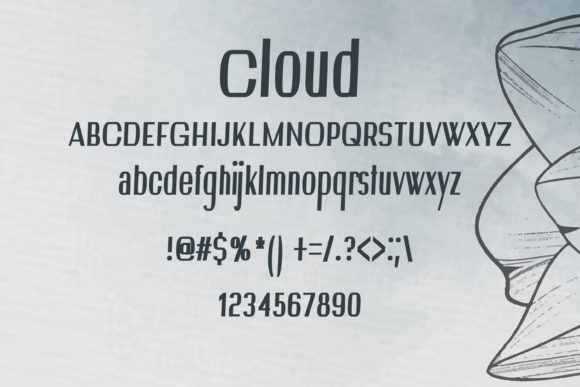
Introducing Cloud Font: Elevate Your Designs with a Futuristic Twist
In the realm of typography, fonts play a pivotal role in bringing ideas to life. Among the myriad of fonts available, Cloud Font stands out as a bold yet minimalistic display font that can add a futuristic edge to your designs. In this article, we’ll delve into the world of Cloud Font, exploring its features, benefits, and applications, as well as provide tips on how to effectively incorporate it into your creative projects.
What is Cloud Font?
Cloud Font is a thoughtfully crafted display font that embodies the perfect blend of boldness and minimalism. Its unique, interestingly shaped characters are designed to add a touch of futurism to your designs, making it an ideal choice for creative projects that require a distinctive edge. Whether you’re working on a logo, branding materials, or digital content, Cloud Font is sure to make your ideas come alive.
Key Features of Cloud Font
- Bold yet Minimalistic: Cloud Font strikes the perfect balance between boldness and simplicity, making it perfect for designs that require a statement piece.
- Uniquely Shaped Characters: Each character in Cloud Font is carefully crafted to provide a distinctive look that sets it apart from other fonts.
- Futuristic Aesthetic: Cloud Font’s futuristic design makes it an excellent choice for projects that require a modern and edgy feel.
- Versatile: Cloud Font can be used across various design applications, including logos, headings, and digital content.
Benefits of Using Cloud Font
So, why should you choose Cloud Font for your next design project? Here are some benefits that make it an attractive option:
- Adds Visual Interest: Cloud Font’s unique design adds visual interest to your designs, making them more engaging and attention-grabbing.
- Enhances Brand Identity: With its distinctive look, Cloud Font can help establish a strong brand identity that sets you apart from the competition.
- Perfect for Digital Content: Cloud Font’s bold and futuristic design makes it perfect for digital content, such as social media graphics, blog posts, and website headers.
Tips for Using Cloud Font Effectively
To get the most out of Cloud Font, here are some tips to keep in mind:
- Use it as a Statement Piece: Cloud Font is designed to be a statement piece, so use it sparingly to add emphasis to your designs.
- Pair it with Simple Fonts: Cloud Font’s bold design can be overwhelming when paired with other bold fonts. Pair it with simple fonts to create visual balance.
- Experiment with Colors: Cloud Font’s futuristic design looks great with bright and bold colors. Experiment with different color schemes to find the perfect combination.
Applications of Cloud Font
Cloud Font’s versatility makes it suitable for a wide range of design applications, including:
- Logo Design: Cloud Font’s unique design makes it perfect for logos that require a bold and futuristic edge.
- Branding Materials: Use Cloud Font to create branding materials, such as business cards, brochures, and letterheads.
- Digital Content: Cloud Font is perfect for digital content, such as social media graphics, blog posts, and website headers.
In conclusion, Cloud Font is a bold yet minimalistic display font that can add a futuristic edge to your designs. With its uniquely shaped characters and versatile design, Cloud Font is perfect for creative projects that require a distinctive look. By incorporating Cloud Font into your designs, you can add visual interest, enhance your brand identity, and create engaging digital content. So why wait? Give Cloud Font a try and take your designs to the next level!